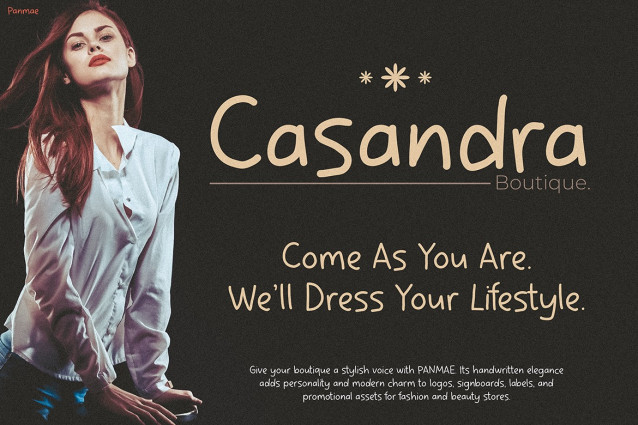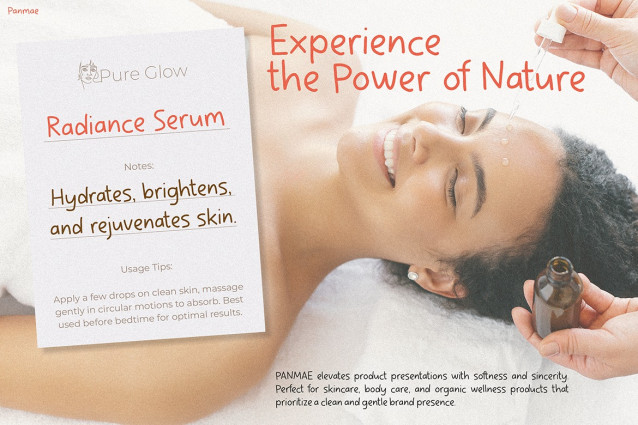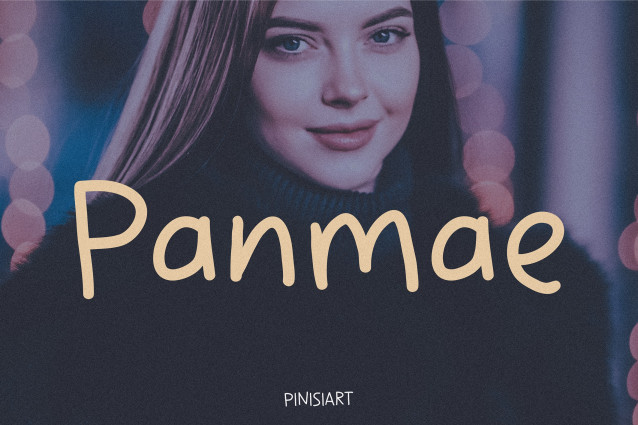
Panmae Font
Panmae Font is a charming and modern handwritten typeface that effortlessly brings warmth and elegance to any visual. With its soft, rounded strokes and organic flow, Panmae evokes a natural, human touch that makes digital designs feel more intimate and approachable. As a result, it becomes an ideal choice for creatives who wish to build genuine emotional connections with their audience.
Not only does it offer visual beauty, but Panmae also blends effortlessly with various design themes. Whether you’re creating minimalist content or adding flair to promotional material, this font adapts gracefully. Additionally, its playful curves and gentle weight provide excellent readability, which is essential for social media and e-commerce visuals. Thanks to its harmonious balance of friendliness and professionalism, Panmae stands out in a crowded visual landscape.Although the message is bold and urgent, the Panmae font maintains a welcoming and stylish personality, helping brands sell with sincerity.